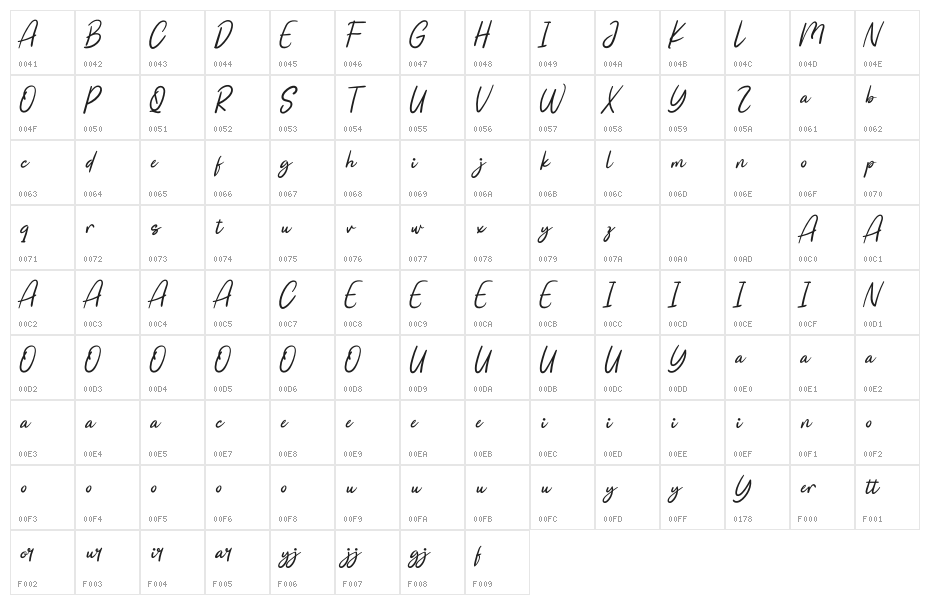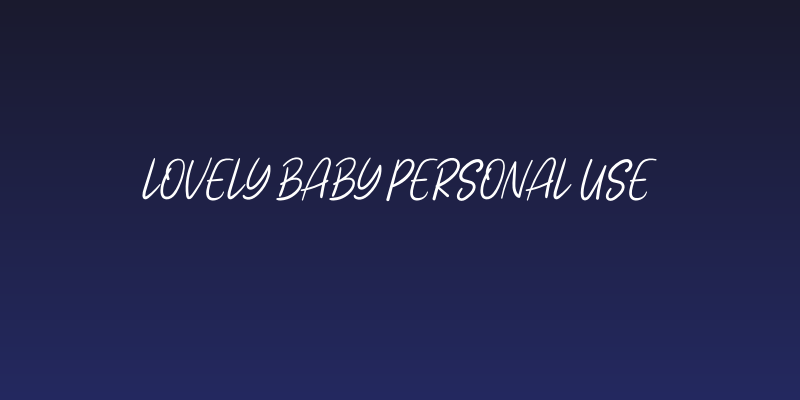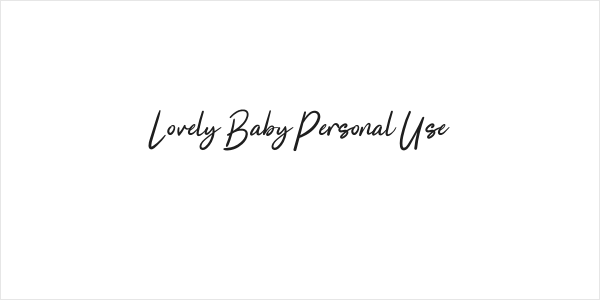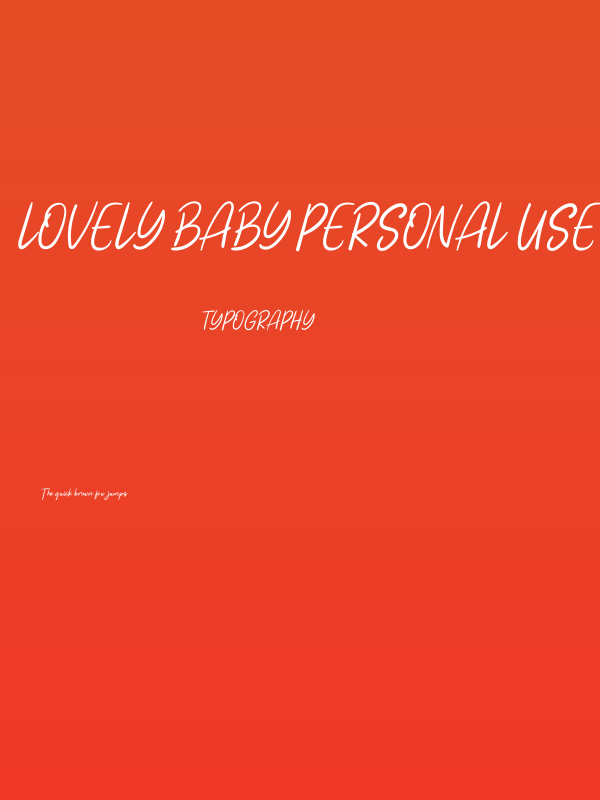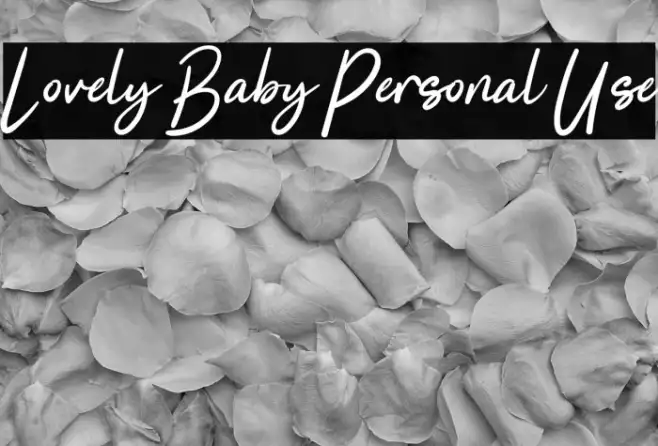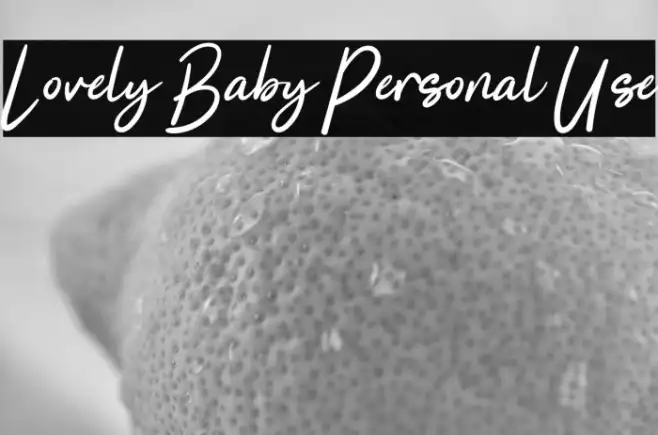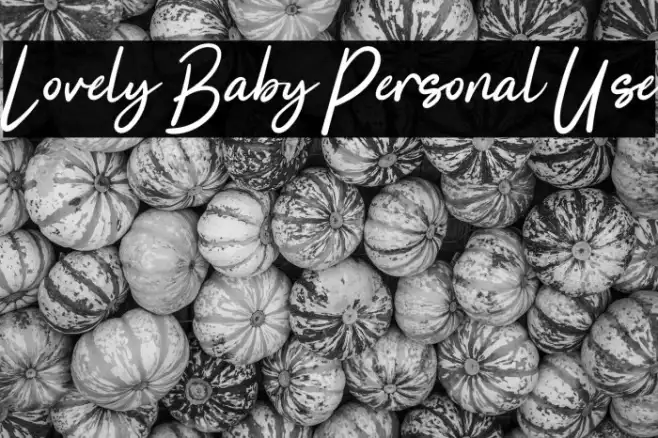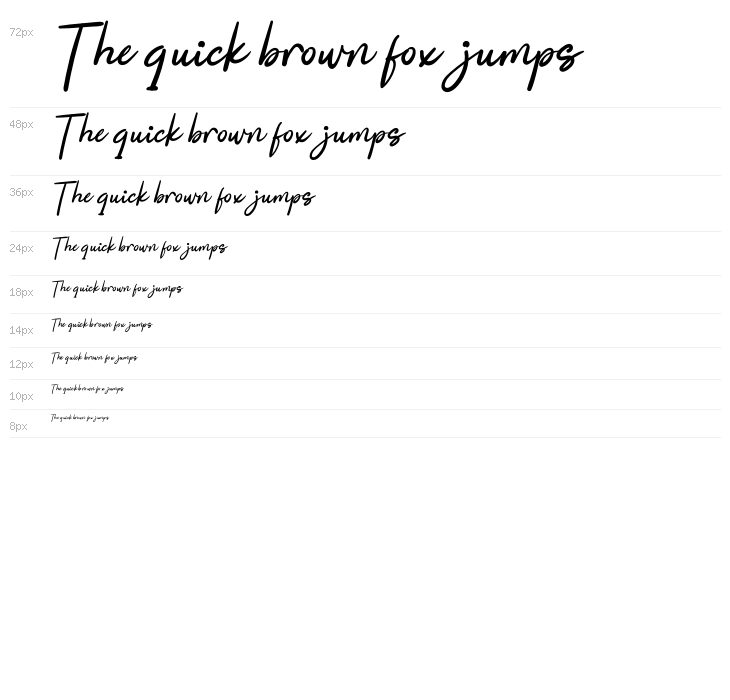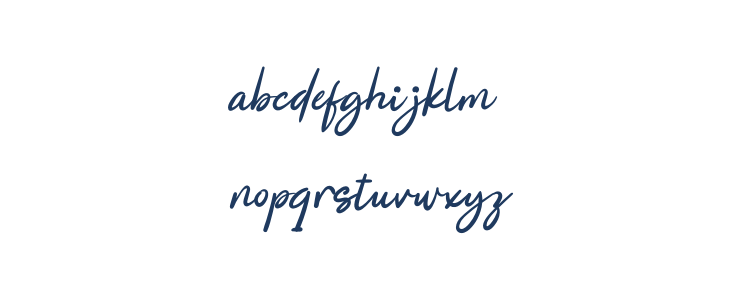
Lovely Baby Personal Use Font
Lovely Baby Personal Use Description
This font features a playful and elegant script style, characterized by its fluid, cursive strokes and a handwritten appearance. The uppercase letters exhibit a graceful flow with slightly exaggerated loops and curves, while the lowercase letters maintain a consistent, smooth connection between characters. The overall design is both whimsical and sophisticated, making it ideal for projects that require a personal touch. The font's legibility is enhanced by its moderate character spacing and medium contrast in stroke thickness, which adds to its charm and readability.
| Proposed Projects | Ideal for wedding invitations, greeting cards, personal branding, and creative projects that require a touch of elegance and personality. |